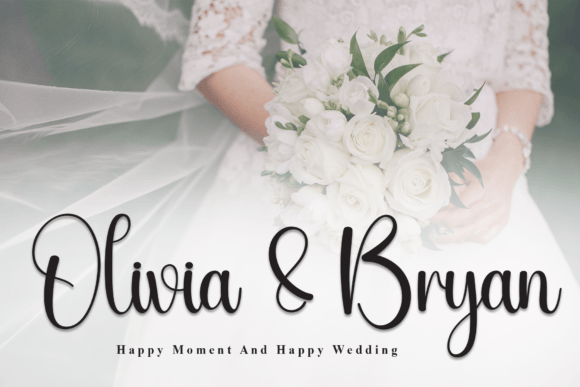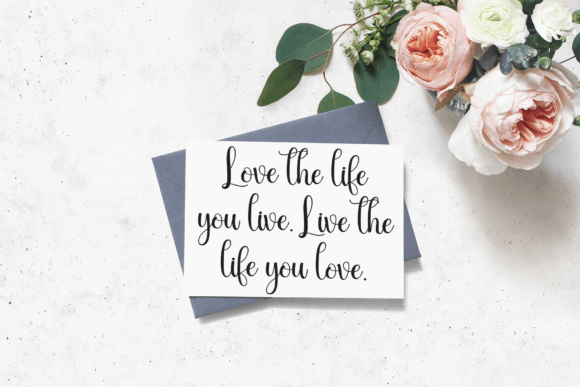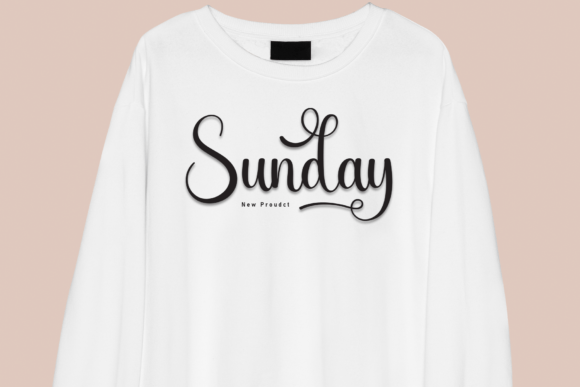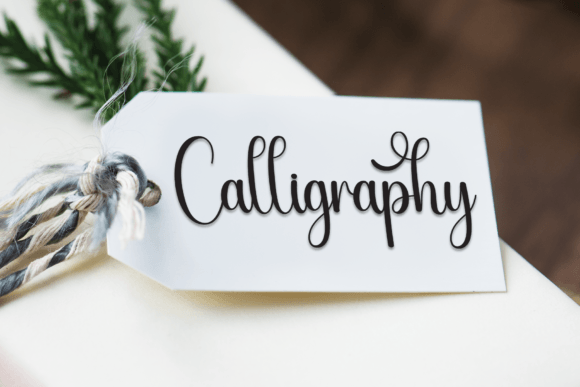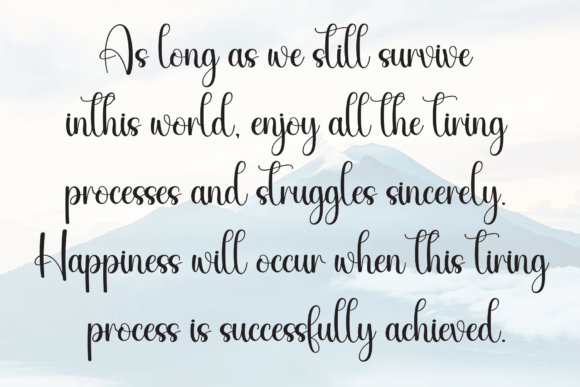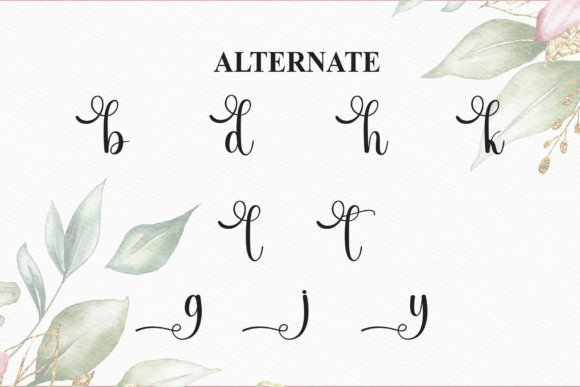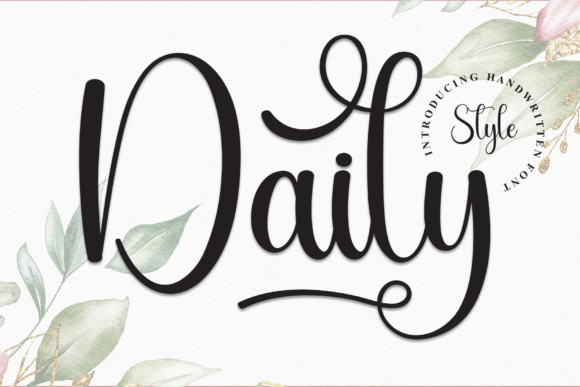
Introducing Daily Font: The Sweet and Cursive Handwritten Font for Your Design Needs
Are you a designer or crafter looking for a font that can add a touch of sweetness and romance to your projects? Look no further than Daily Font, a beautiful and cursive handwritten font that is perfect for a variety of design ideas. In this article, we’ll take a closer look at Daily Font, its features, and how you can use it to elevate your designs.
What is Daily Font?
Daily Font, also known as Daisy, is a sweet and cursive handwritten font that is designed to bring a touch of joy and romance to your designs. Its gentle and flowing curves make it perfect for creating beautiful and eye-catching designs that will capture the attention of your audience. Whether you’re working on a branding project, a wedding invitation, or a social media graphic, Daily Font is the perfect choice.
Features of Daily Font
So, what makes Daily Font so special? Here are some of its key features:
- Sweet and Cursive Design: Daily Font has a beautiful, cursive design that is both sweet and elegant. Its flowing curves and gentle lines make it perfect for creating designs that are both feminine and sophisticated.
- Handwritten Style: Daily Font has a handwritten style that gives it a personal and unique touch. It’s perfect for creating designs that look like they were written with love and care.
- Versatile: Daily Font is incredibly versatile and can be used on a variety of design projects, from branding and advertising to wedding invitations and social media graphics.
- Easy to Read: Despite its cursive design, Daily Font is easy to read, making it perfect for body text and other applications where readability is important.
How to Use Daily Font in Your Designs
Now that we’ve covered the features of Daily Font, let’s take a look at how you can use it in your designs. Here are some ideas to get you started:
- Branding and Advertising: Use Daily Font to create beautiful and eye-catching branding materials, such as logos, business cards, and brochures.
- Wedding Invitations: Daily Font is perfect for creating beautiful and romantic wedding invitations that will set the tone for your special day.
- Social Media Graphics: Use Daily Font to create eye-catching social media graphics that will help you stand out from the crowd.
- Stationery and Paper Crafts: Daily Font is perfect for creating beautiful stationery and paper crafts, such as greeting cards, journals, and planners.
Tips for Getting the Most Out of Daily Font
Here are some tips for getting the most out of Daily Font:
- Experiment with Different Sizes and Colors: Daily Font looks great in a variety of sizes and colors, so don’t be afraid to experiment and find the combination that works best for your design.
- Pair it with Other Fonts: Daily Font pairs well with a variety of other fonts, so try pairing it with a bold font for headings or a sans-serif font for body text.
- Use it Consistently: To create a cohesive look, use Daily Font consistently throughout your design.
In conclusion, Daily Font is a beautiful and versatile font that is perfect for designers and crafters looking to add a touch of sweetness and romance to their projects. With its sweet and cursive design, handwritten style, and ease of use, Daily Font is sure to become a favorite in your design arsenal. So why not give it a try and see how it can elevate your designs?